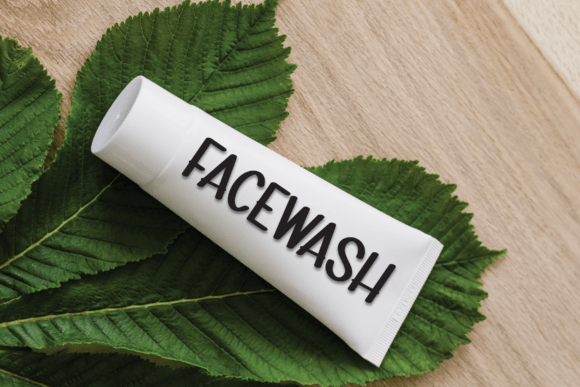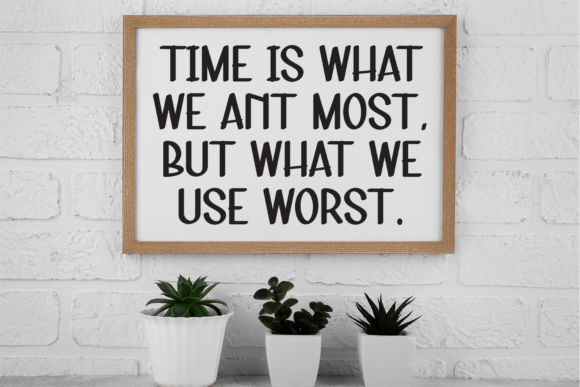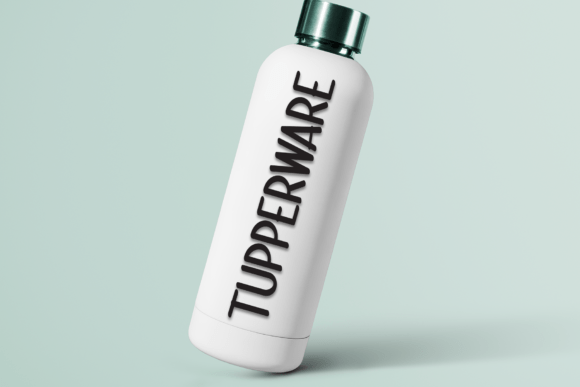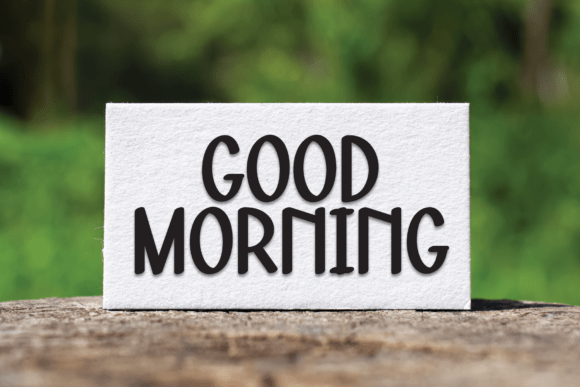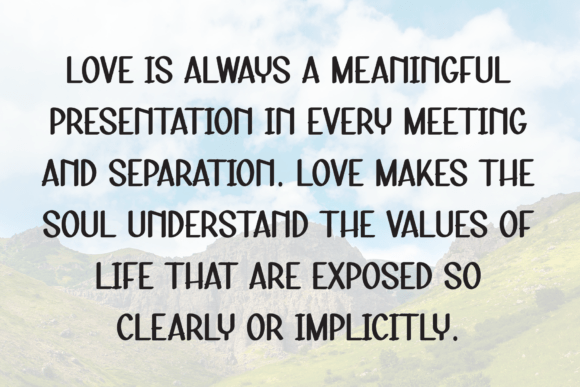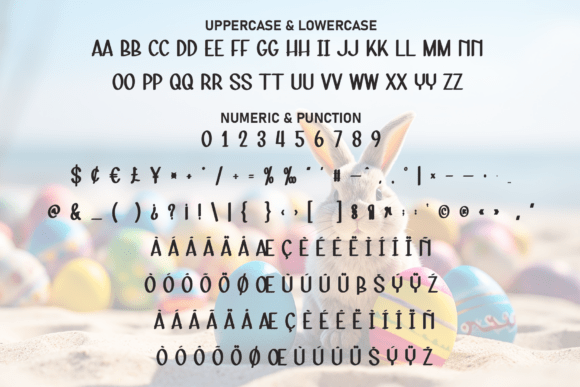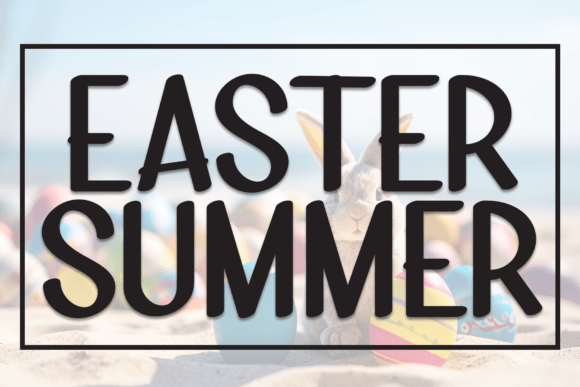
Easter Summer Font: The Perfect Addition to Your Summer Designs
Are you looking for a font that captures the essence of summer fun and relaxation? Look no further than the Easter Summer Font. This neat and casual display font is designed to bring a breezy, laid-back feel to any creative project or message. With its clean lines and easygoing vibe, it’s perfect for summer posters, event flyers, and playful branding.
What Makes Easter Summer Font So Special?
Easter Summer Font is more than just a font – it’s an experience. It’s the feeling of warm sun on your skin, the sound of seagulls flying overhead, and the smell of saltwater and ice cream. This cheerful typeface is designed to evoke the carefree spirit of summer, making it perfect for designers and crafters who want to add a touch of fun and whimsy to their work.
One of the standout features of Easter Summer Font is its clean lines and simple design. Unlike some fonts that can be overly ornate or complicated, Easter Summer Font is easy to read and understand, making it perfect for use in a variety of applications, from large-scale posters to smaller social media graphics.
Perfect for Summer Projects
Easter Summer Font is specifically designed with summer projects in mind. Whether you’re creating a poster for a summer sale, a flyer for a beach festival, or a social media graphic for a summer-themed campaign, this font is sure to bring the heat. Its breezy, laid-back feel is perfect for capturing the essence of summer, and its easygoing vibe is sure to resonate with your audience.
Some ideas for using Easter Summer Font in your summer projects include:
• Summer posters and flyers for events, sales, and promotions
• Social media graphics for summer-themed campaigns and promotions
• Playful branding for summer-related businesses, such as ice cream shops, beachwear stores, and outdoor recreation companies
• Invitations and decorations for summer parties and events
Why Designers and Crafters Love Easter Summer Font
Easter Summer Font is a favorite among designers and crafters for a number of reasons. Here are just a few:
• Highly versatile: This font can be used in a wide range of applications, from large-scale posters to smaller social media graphics.
• Unique and eye-catching: Easter Summer Font has a distinctive look and feel that’s sure to grab attention and stand out from the crowd.
• Perfect for summer projects: As mentioned earlier, Easter Summer Font is specifically designed with summer projects in mind, making it a great choice for designers and crafters who want to create summer-themed work.
Tips for Using Easter Summer Font
Here are a few tips for getting the most out of Easter Summer Font:
• Use it in large sizes: Easter Summer Font is designed to be used in larger sizes, so don’t be afraid to go big and make a statement.
• Experiment with colors: Summer is all about bright, bold colors, so try experimenting with different color combinations to really make your work pop.
• Pair it with other fonts: Easter Summer Font pairs well with a variety of other fonts, so feel free to get creative and experiment with different combinations.